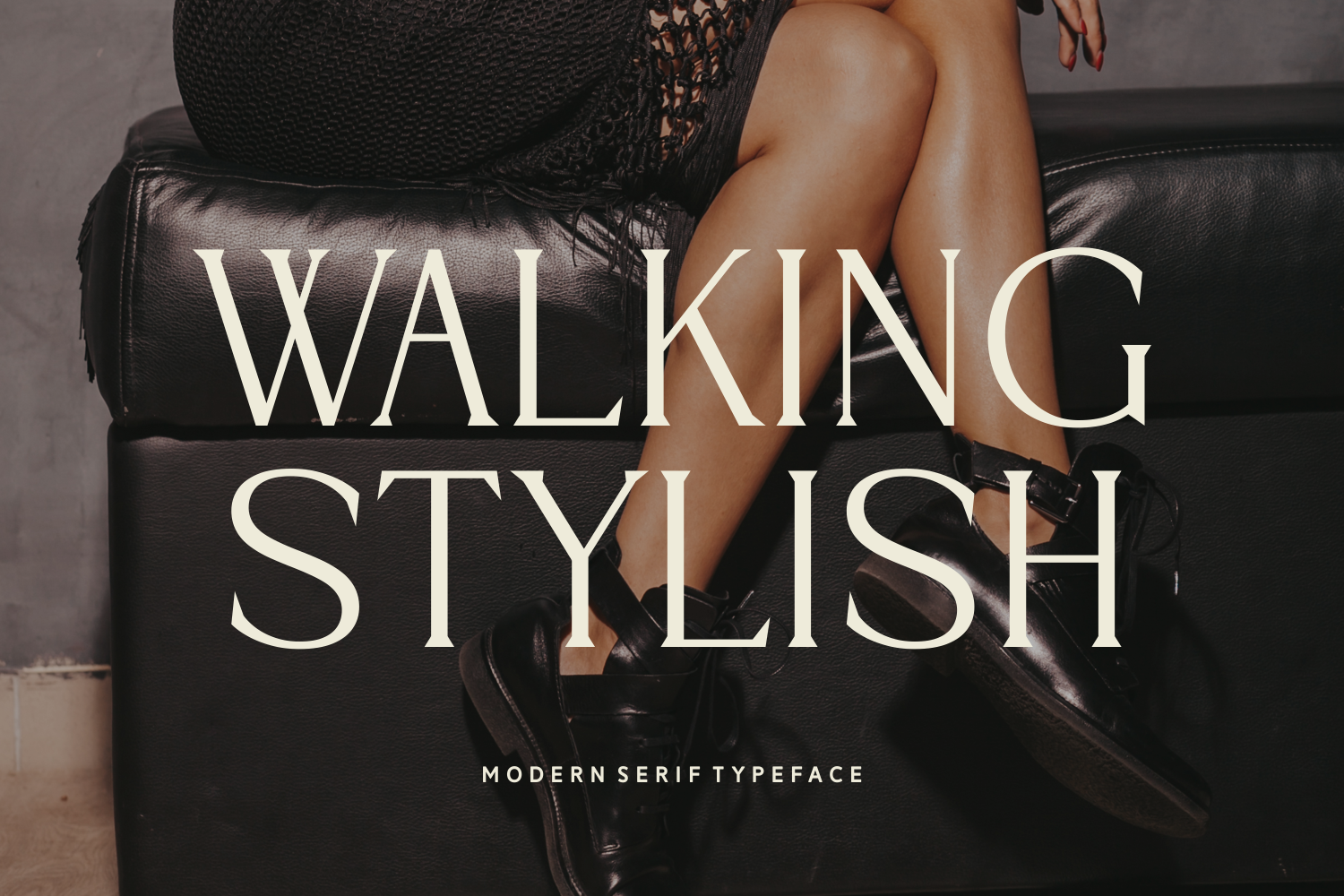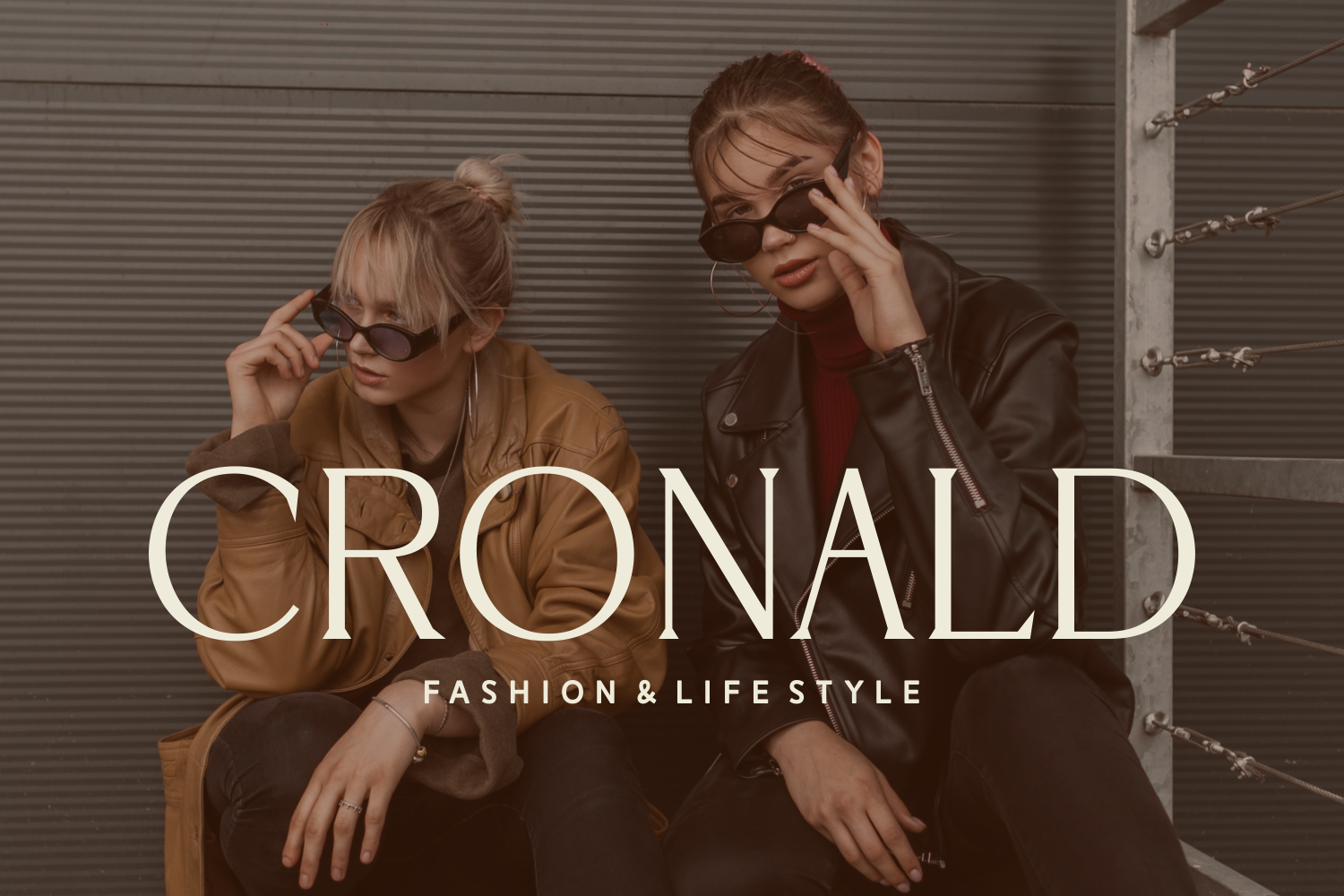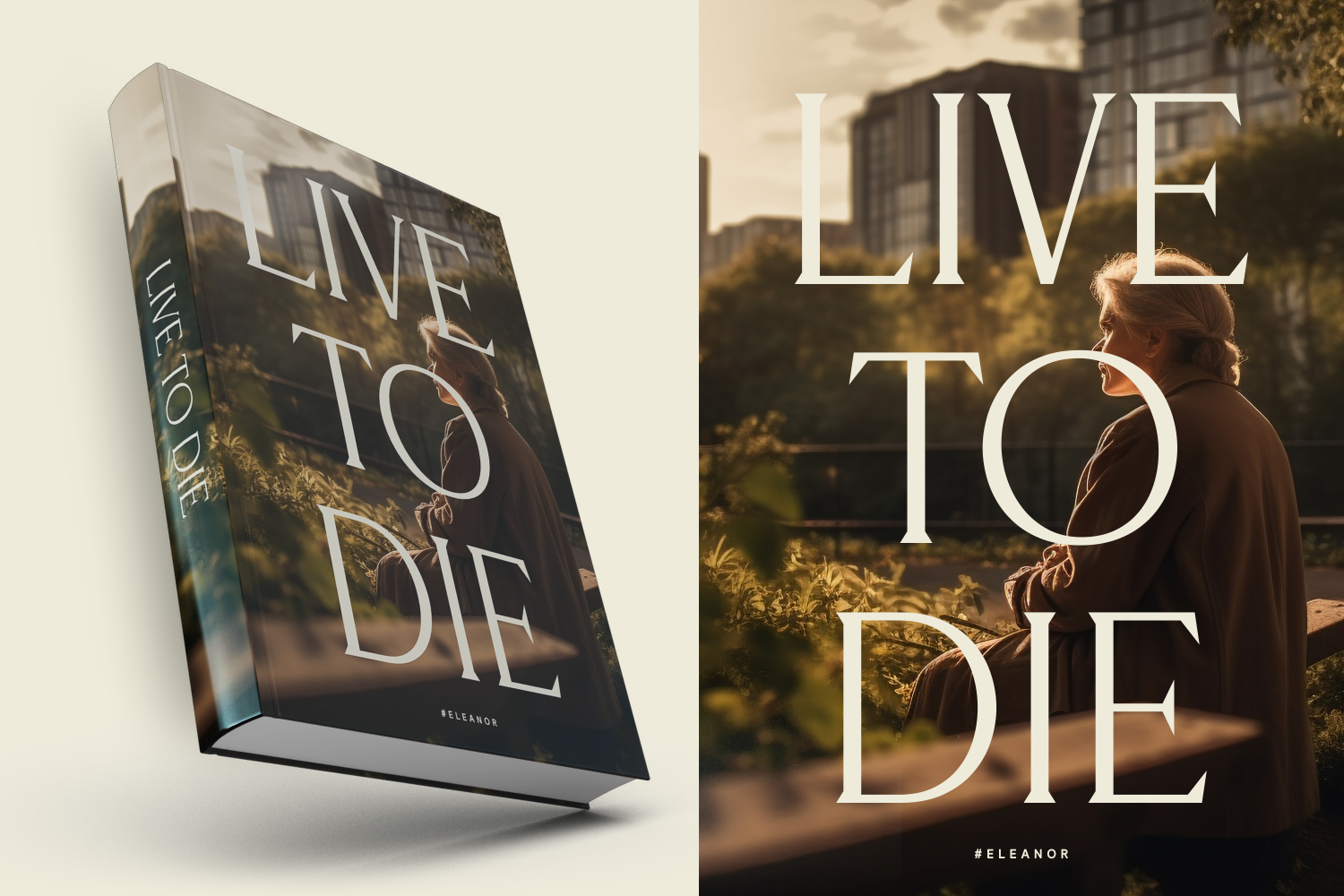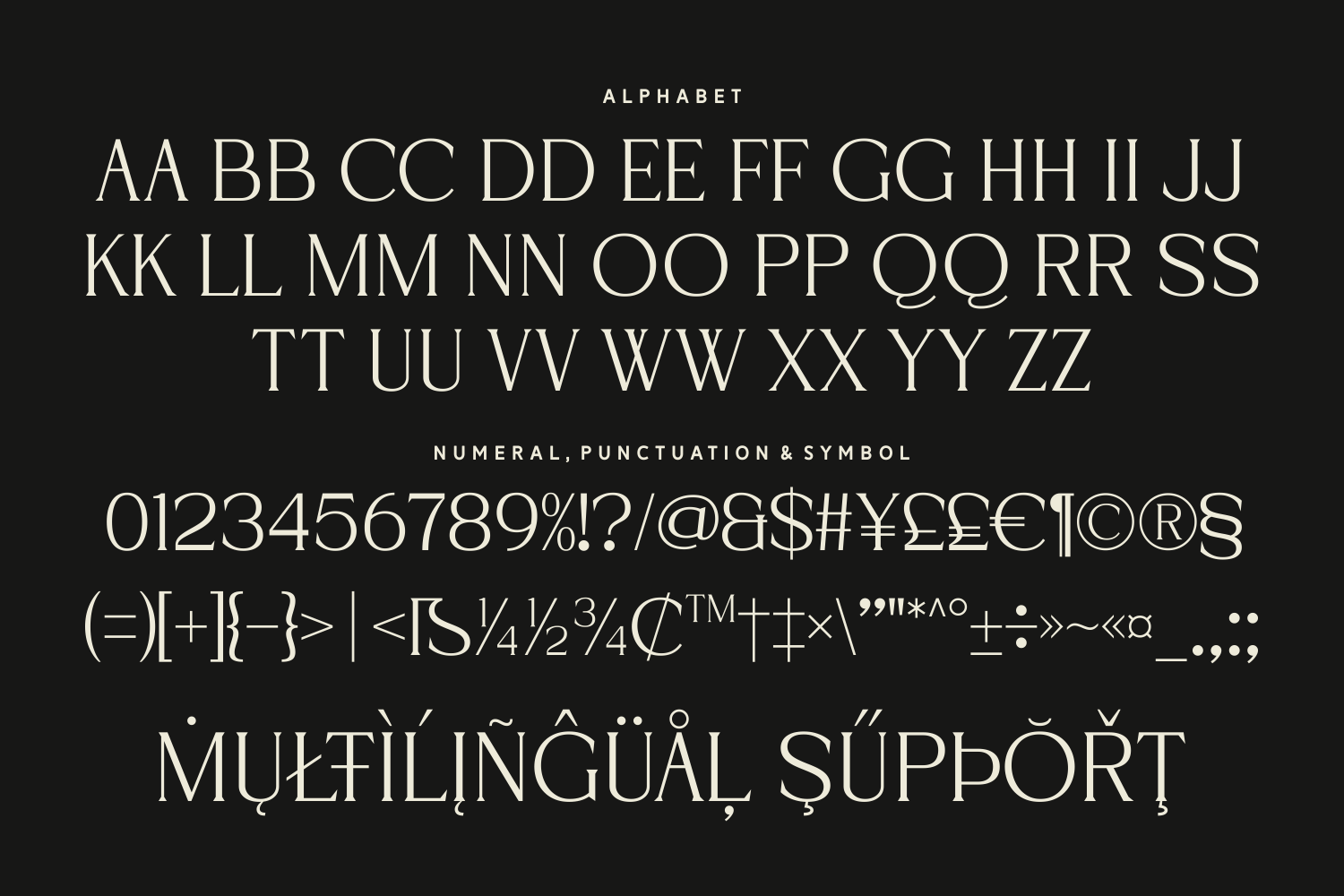
Walking Stylish
Walking Stylish is a refined modern serif typeface with tall, narrow letterforms and crisp contrast—crafted for fashion-forward design. A typeface that walks the line between editorial polish and bold expression.